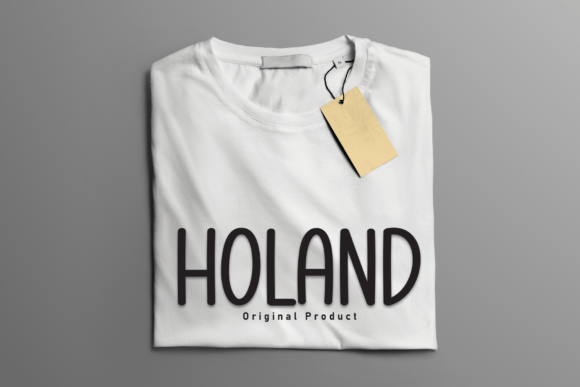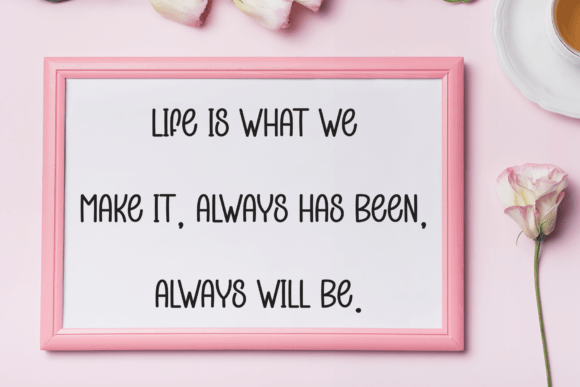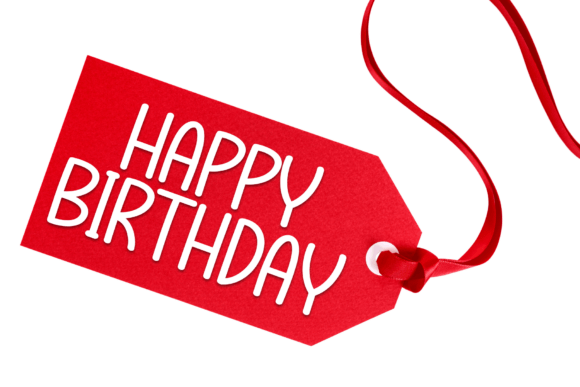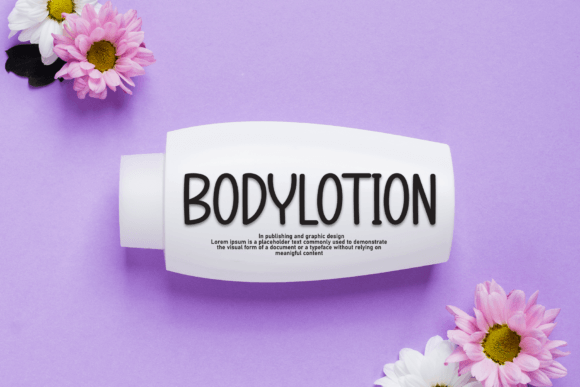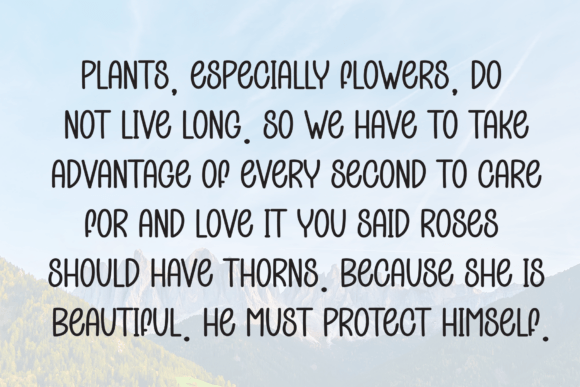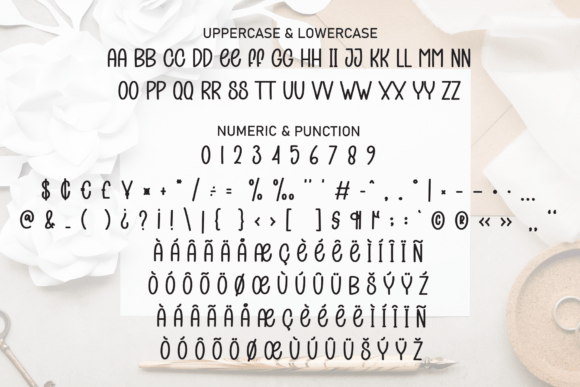
Paper Invitation Font – Free Download
Introduction to Paper Invitation Font
Paper Invitation is a charming display font that mimics the look of handwritten invitations.
Its playful, flowing letters give a warm and friendly feel, making it perfect for events like weddings, birthdays, and parties The font is easy to read and adds a personal touch to any printed invitation.
Key Features of Paper Invitation Font
Why Choose Paper Invitation Font?